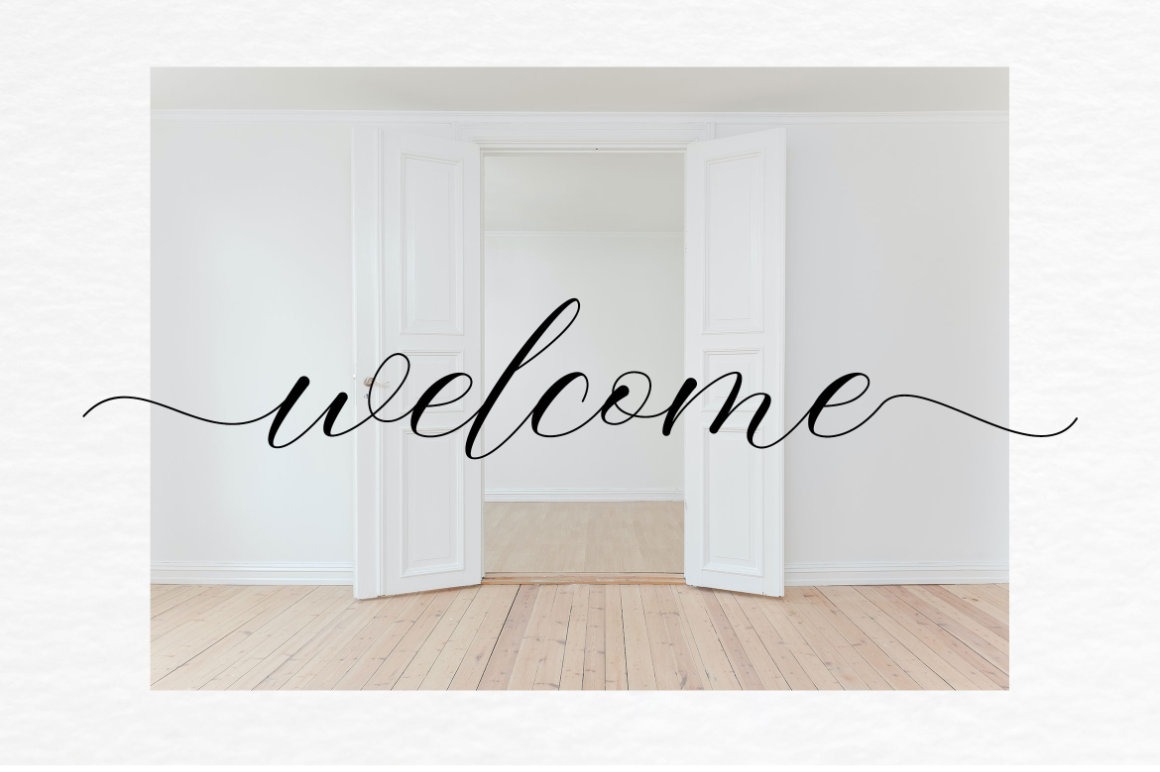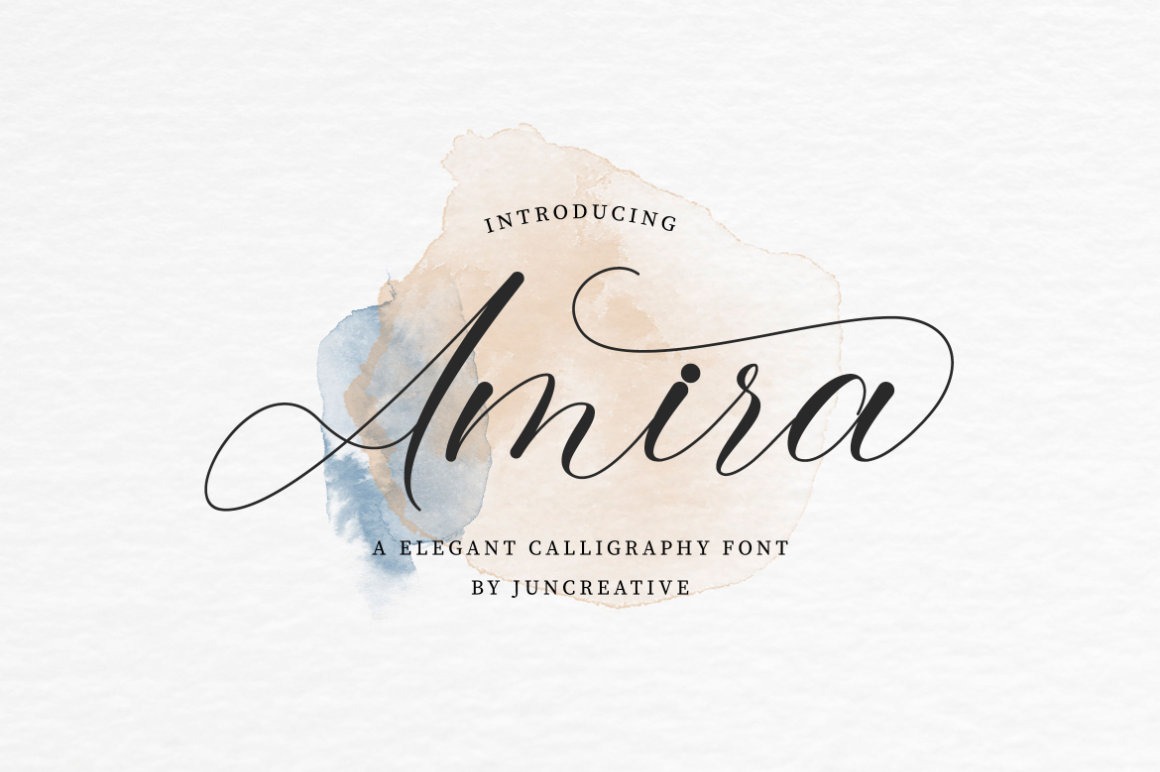
Amira Calligraphy Font
This is an elegant calligraphy typeface manufactured by JunCreative. It has a dancing baseline which will give your design a fresh and modern feel. It has the potential to elevate the look of your most creative designs! This font is PUA encoded which means you can access all of the glyphs and swashes with ease!